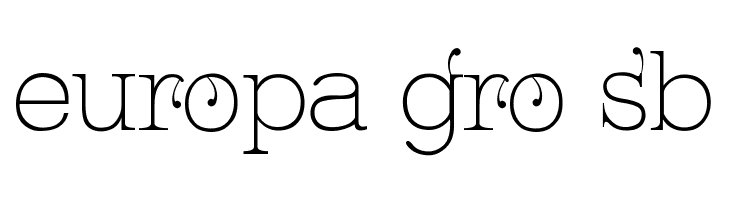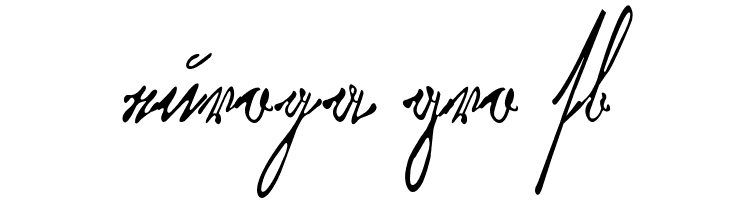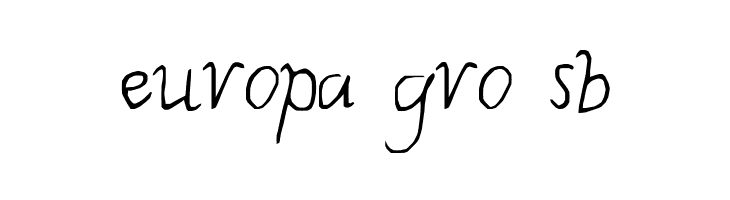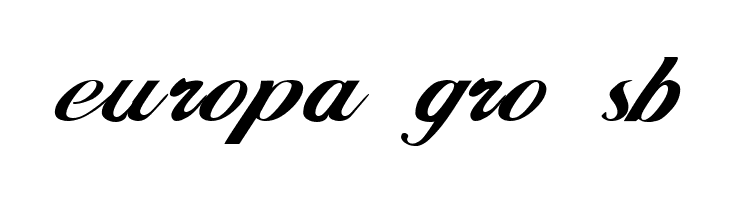
An ultra-light serif font with elegant, refined strokes and classic styling.
An elegant, thin script font with flowing, interconnected letters and high contrast strokes.
A cursive, handwritten font with elegant, flowing lines.